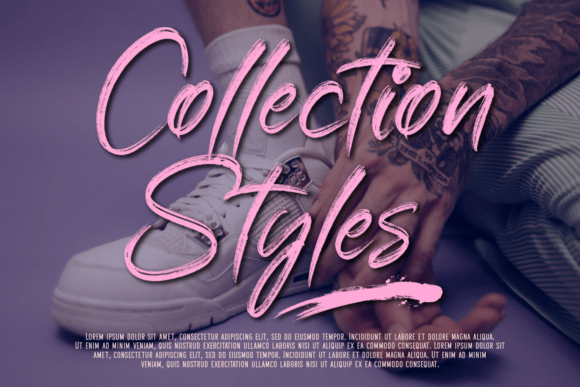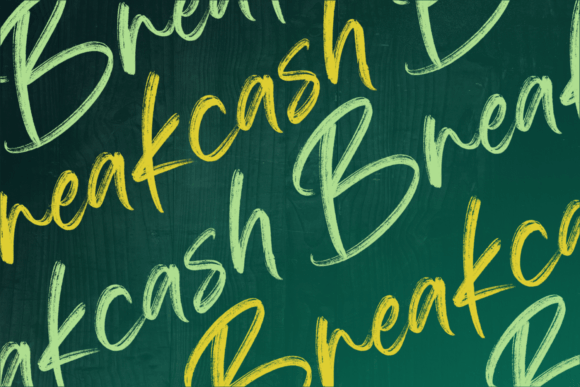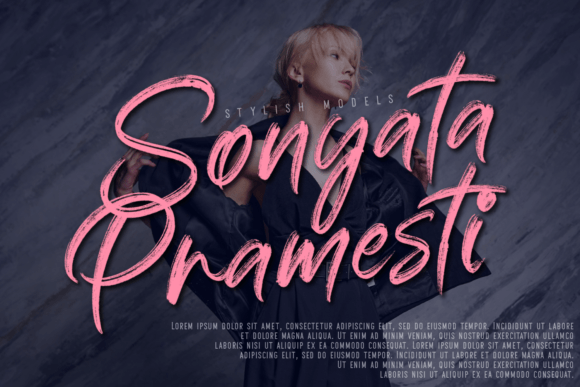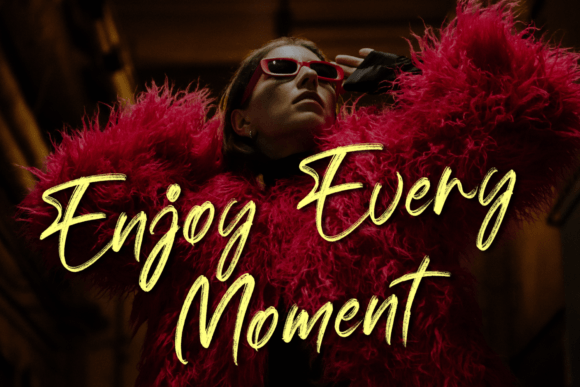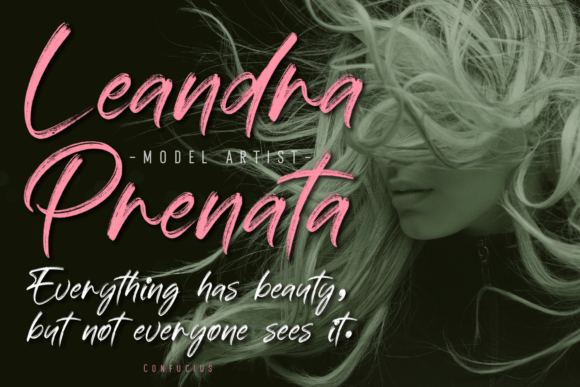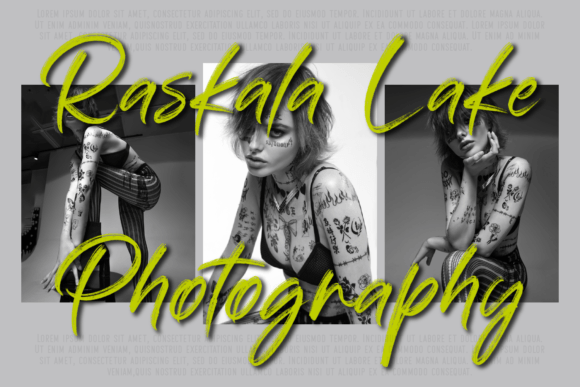
The Breakcash Font: A Creative Powerhouse
I’ll never forget the design project that led me to discover the Breakcash font. I was working on a branding campaign for a trendy boutique hotel, and I needed a font that would capture the essence of their eclectic, artistic vibe. After hours of scrolling through font libraries and trying out different combinations, I stumbled upon Breakcash – a splendid handwritten brush color font that instantly resonated with my creative vision.
So, what makes Breakcash so special? Let’s dive into the good stuff and a few quirks I’ve encountered.
- ✨ Unique, hand-crafted feel: Breakcash boasts an impressive, elegant look that’s perfect for making a statement in any design project.
- ✅ Versatility: This font is bold yet subtle, making it suitable for a wide range of creative applications, from logos and branding to social media graphics and invitations.
- 💫 Color font capabilities: Breakcash comes with built-in color options, allowing you to add an extra layer of depth and visual interest to your designs.
- 🔍 OpenType features: This font supports a range of OpenType features, including stylistic alternates, ligatures, and more.
While Breakcash is an amazing font, there are a few things to keep in mind:
- 🤔 Legibility at small sizes: As with many script fonts, Breakcash can become a bit tricky to read at very small sizes. It’s best used at larger sizes where its unique character can shine.
- ⚠️ Pairing with other fonts: Due to its bold, expressive nature, Breakcash can be a bit challenging to pair with other fonts. Experiment with different combinations to find the perfect match.
A Practical Guide to Using Breakcash
The Story Behind Breakcash
While the true story behind Breakcash remains a mystery, it’s easy to imagine that it was crafted by a designer with a passion for hand-lettering and creative expression. Perhaps the designer, inspired by the fluidity of brush strokes and the elegance of handwritten scripts, set out to create a font that would bring a touch of artistic flair to any design project.
Q: What makes Breakcash a unique font?
A: Breakcash stands out due to its hand-crafted, brush-like appearance and built-in color font capabilities, making it perfect for creative projects that require a bold yet elegant look.
Q: Is Breakcash a difficult font to read?
A: While Breakcash is a script font, it’s generally easy to read at larger sizes. However, as with many script fonts, it can become tricky to read at very small sizes.